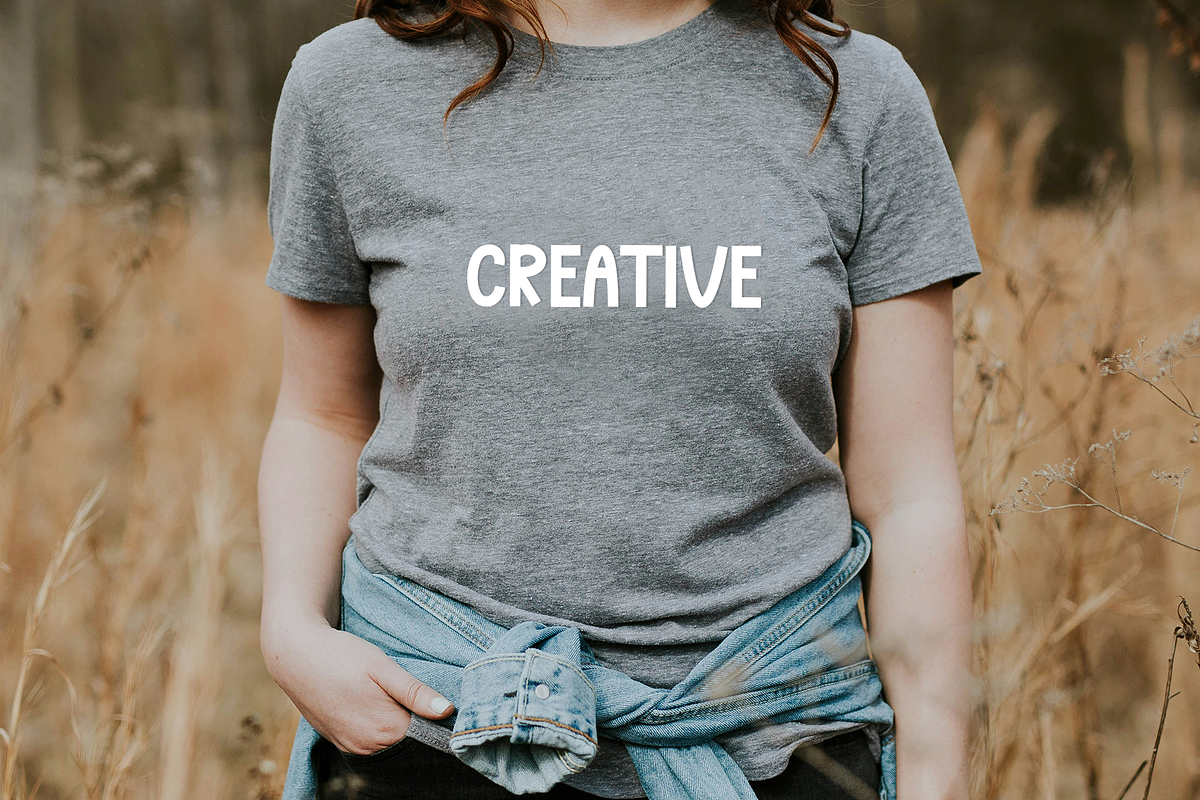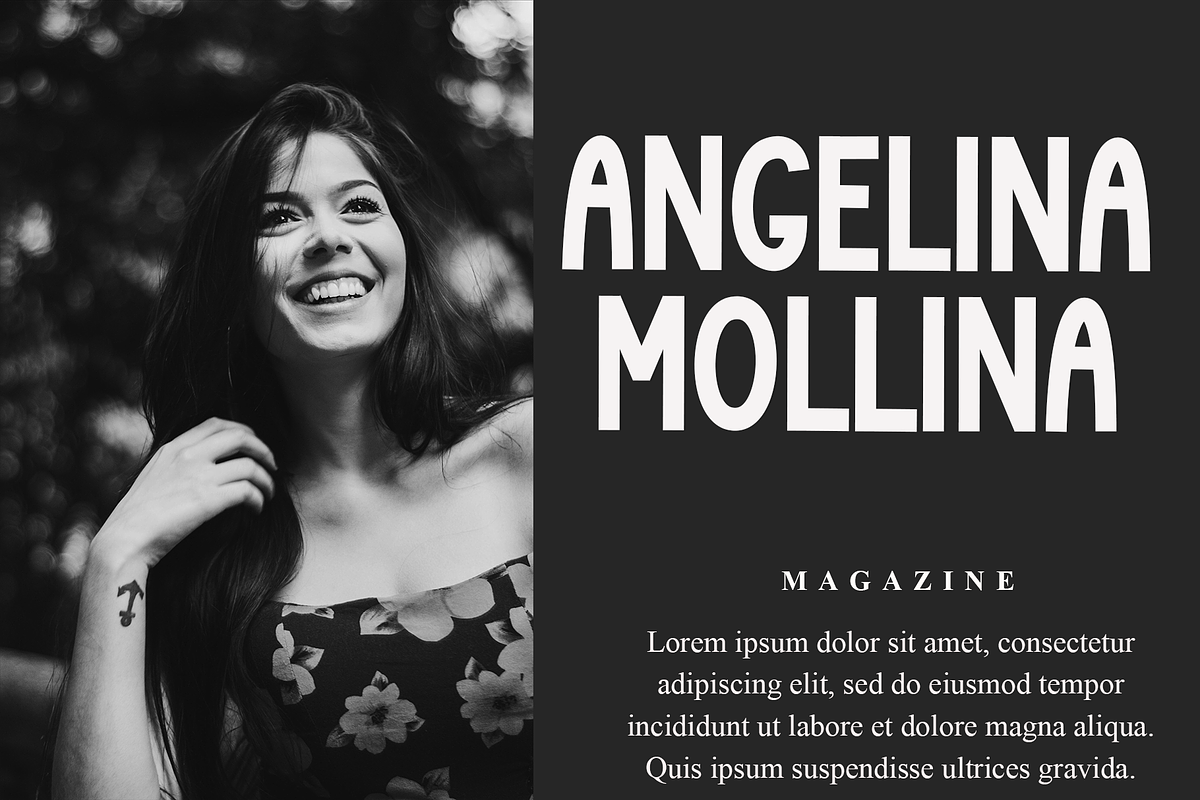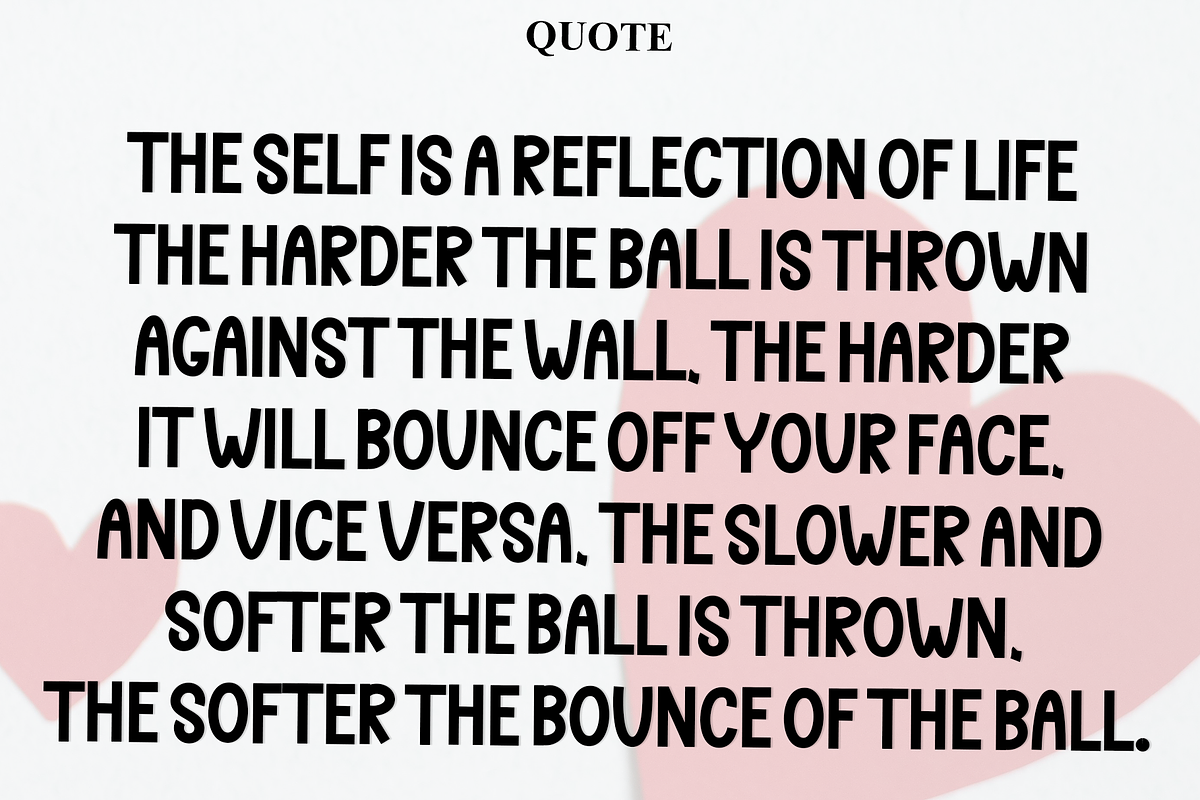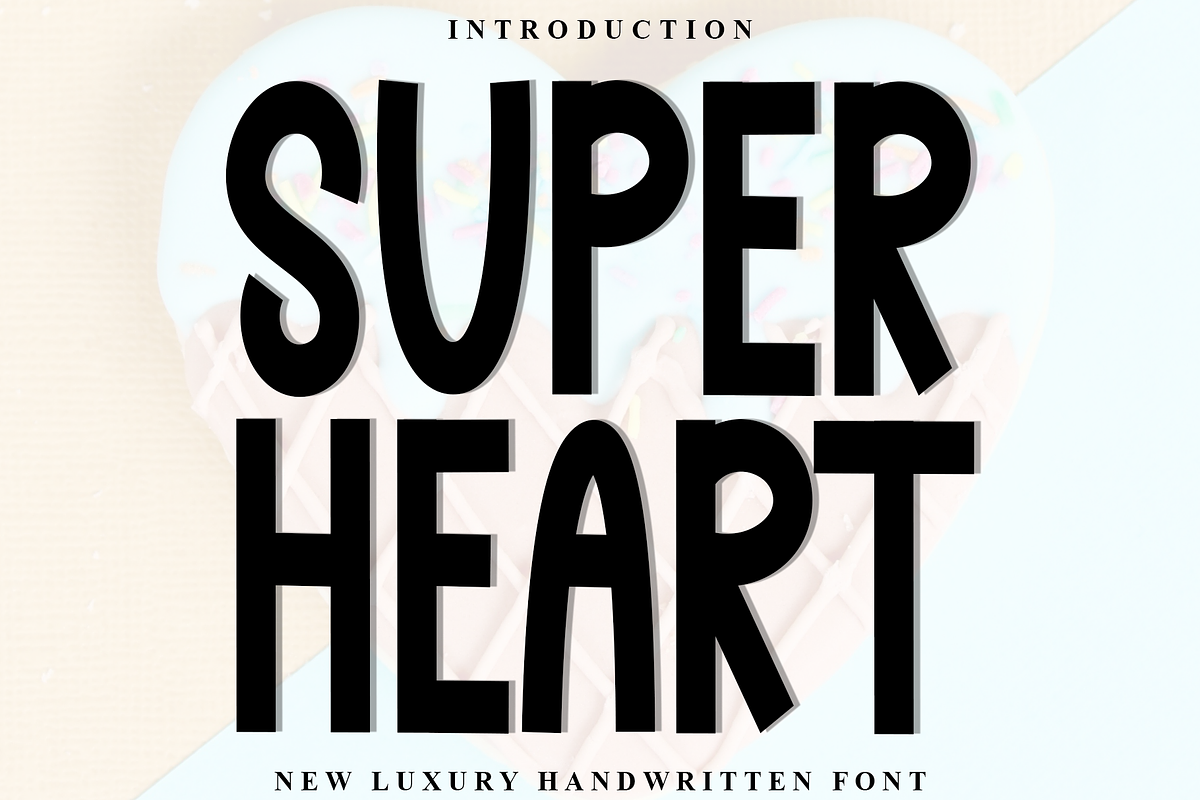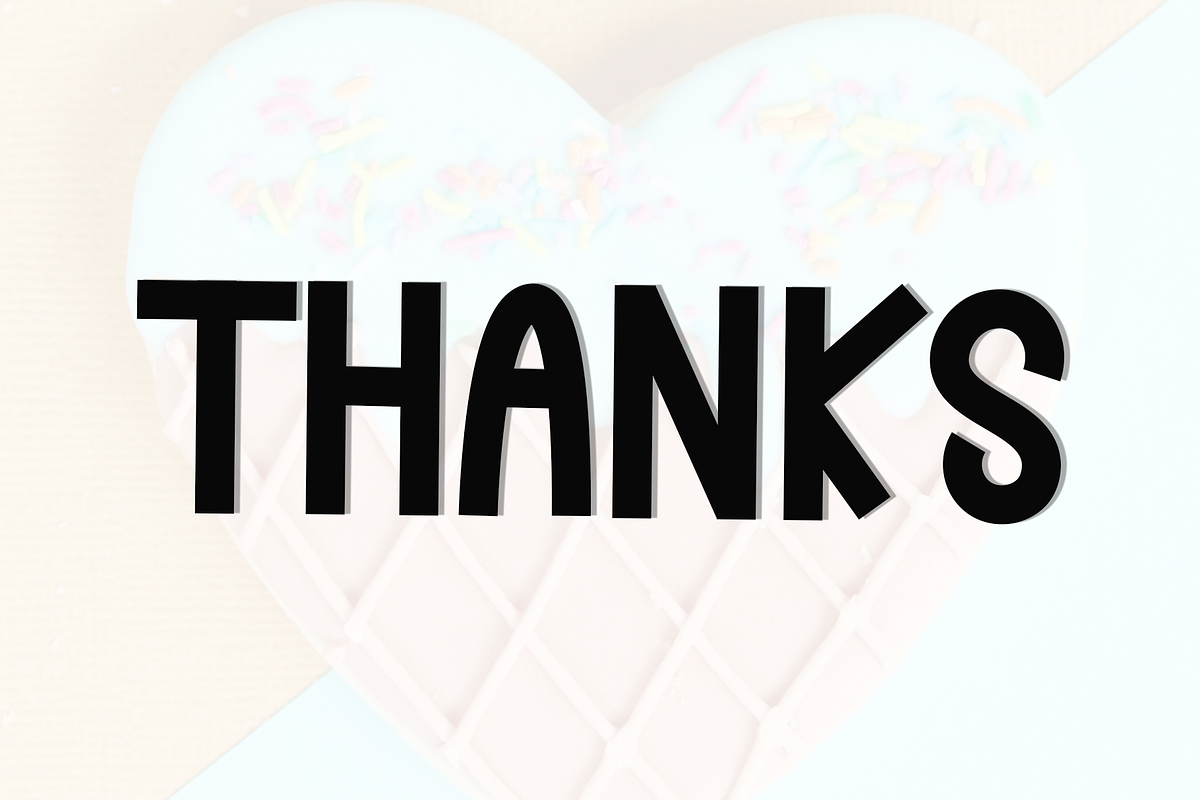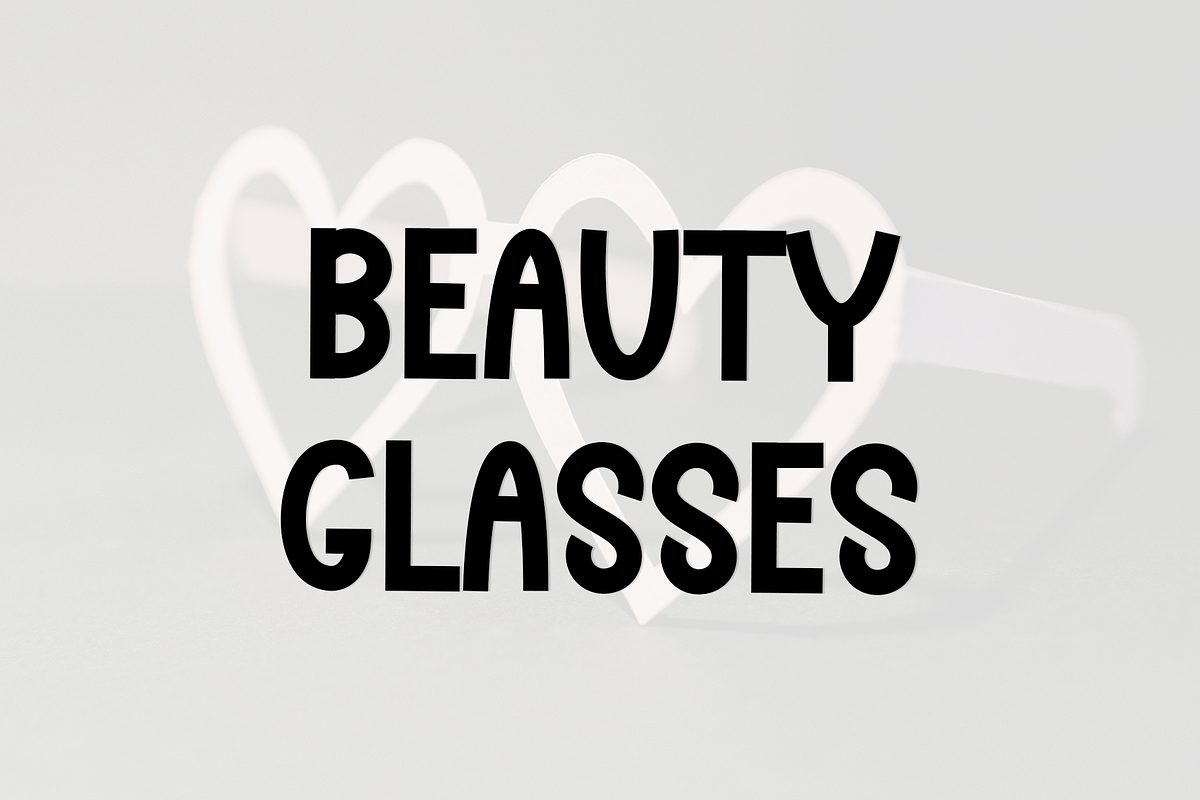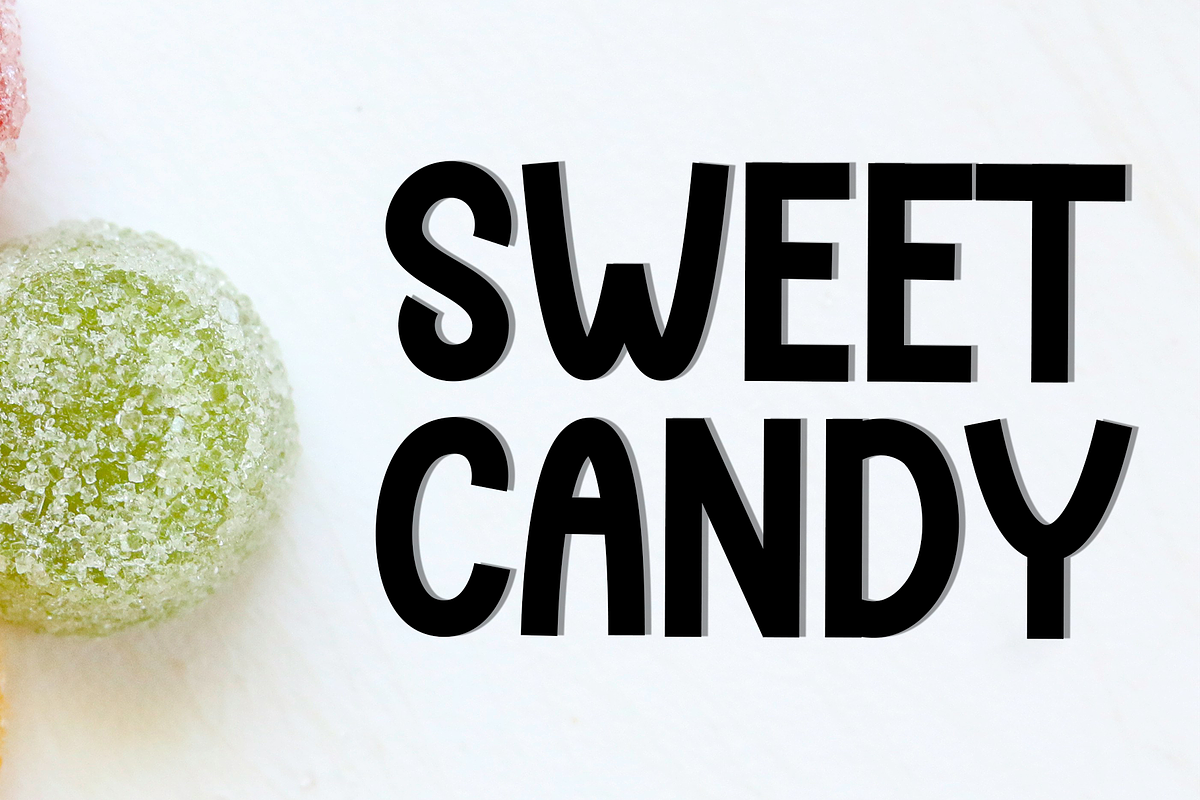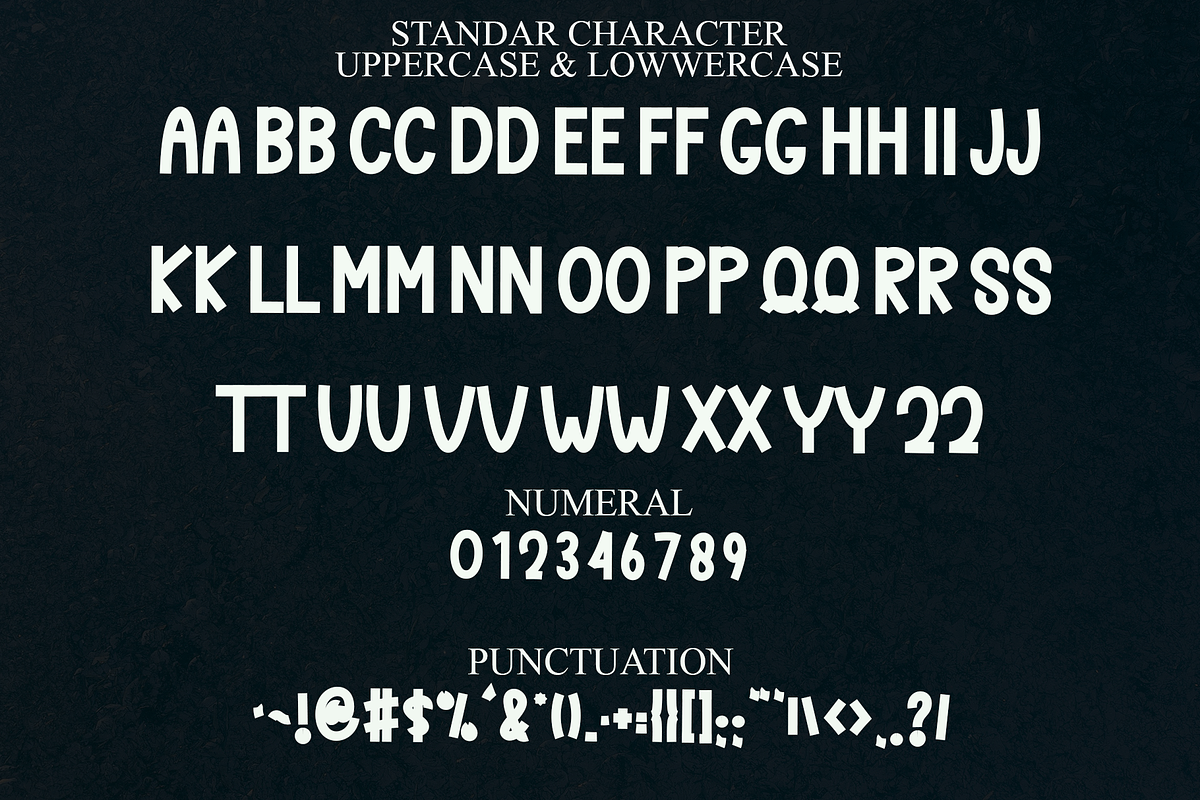
Super Heart
Super Heart is a beautiful and eye-catching font designed with a soft, unique touch. Its distinctive strokes give it a special character, making it meaningful and versatile for future use. With various characters, it’s perfect for design projects, crafts, and other creative works.